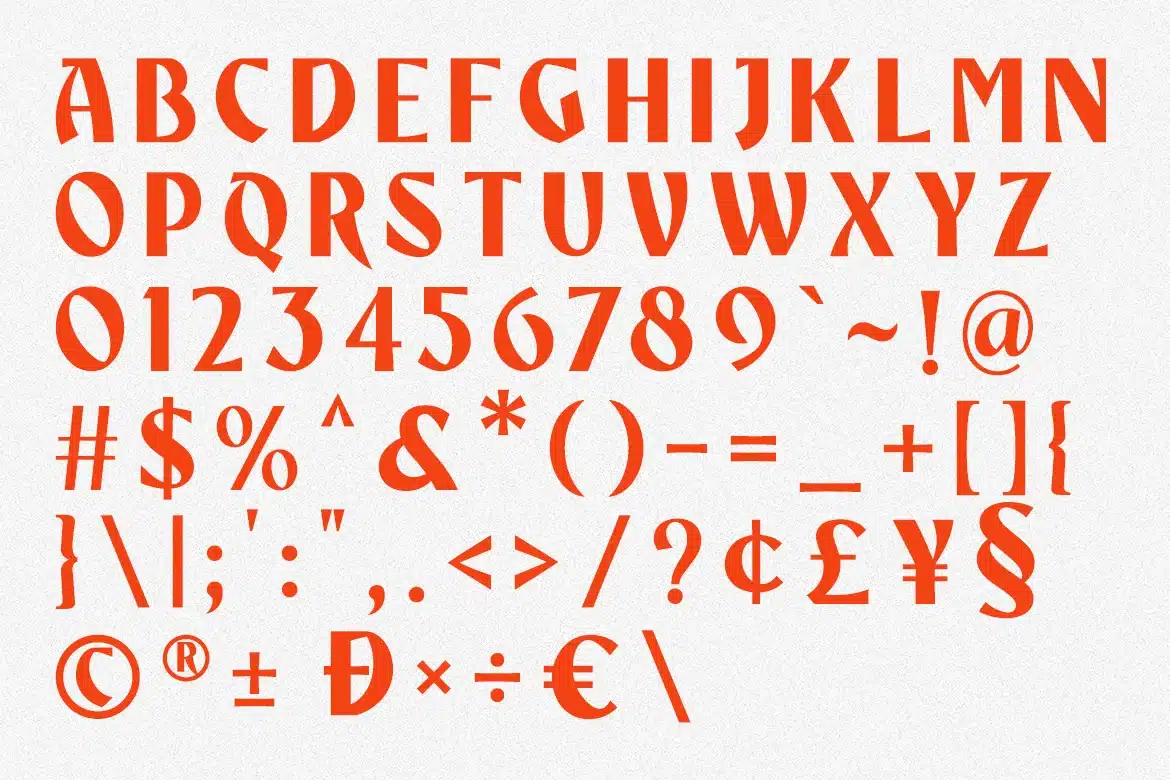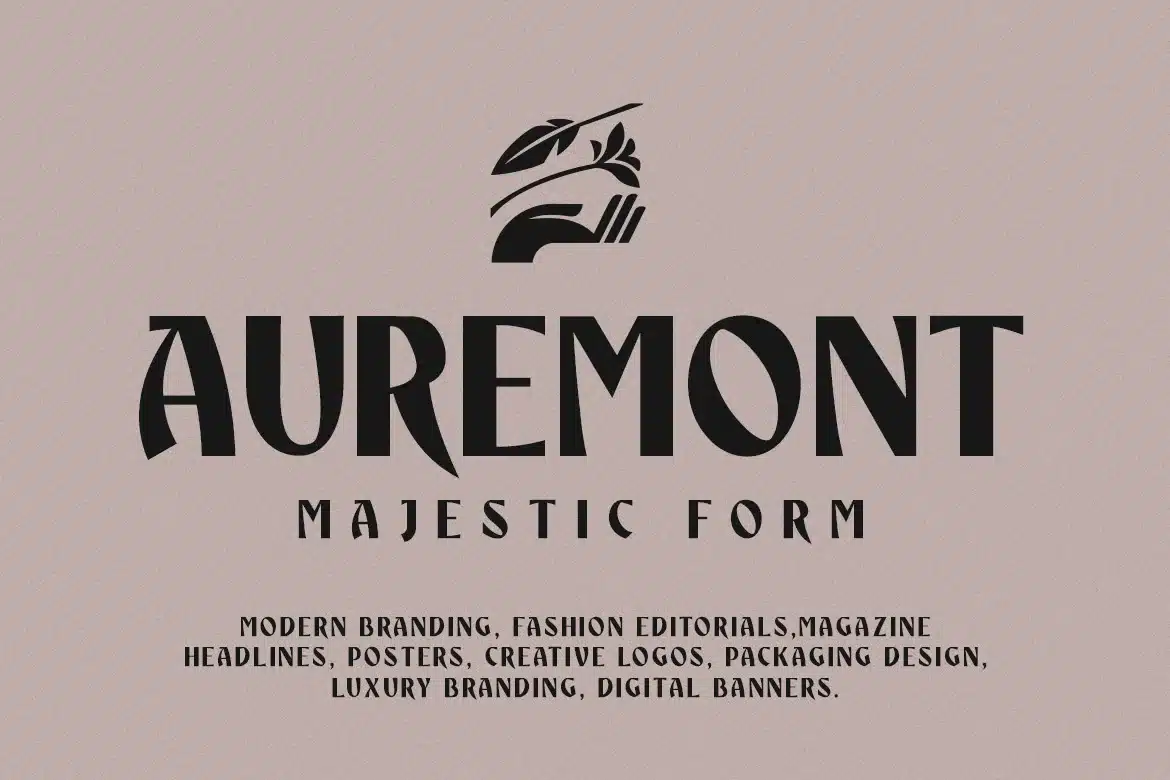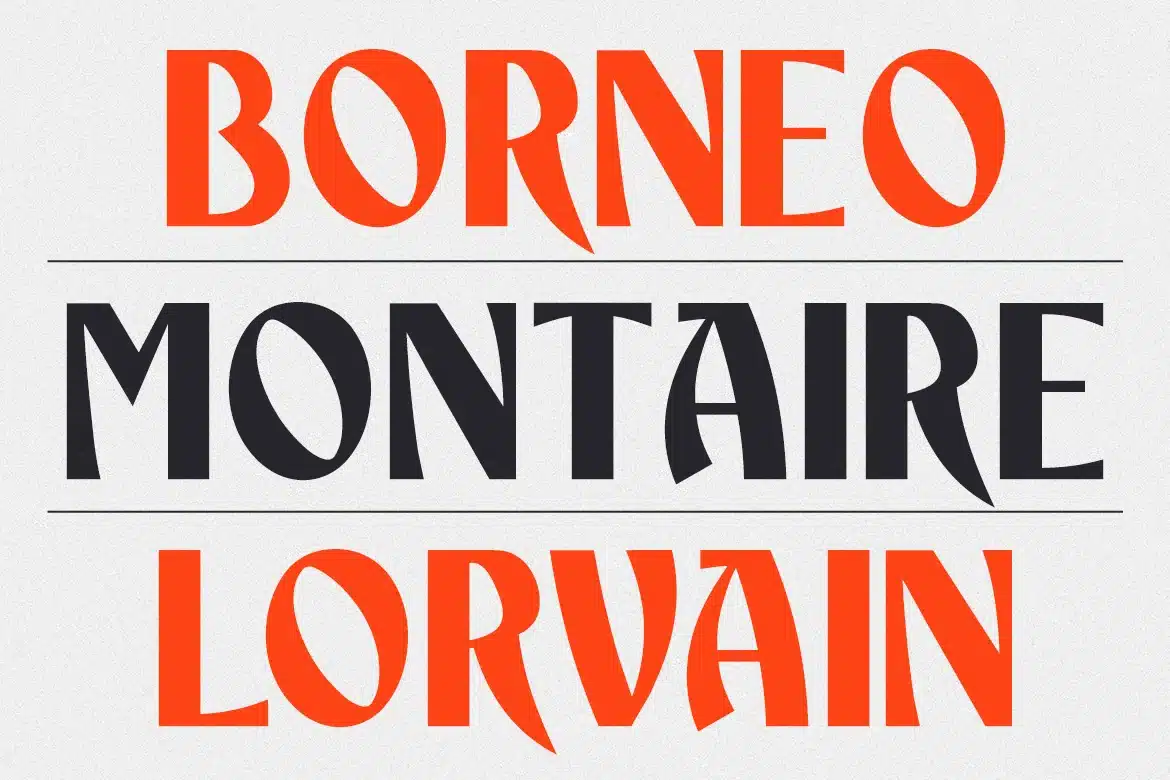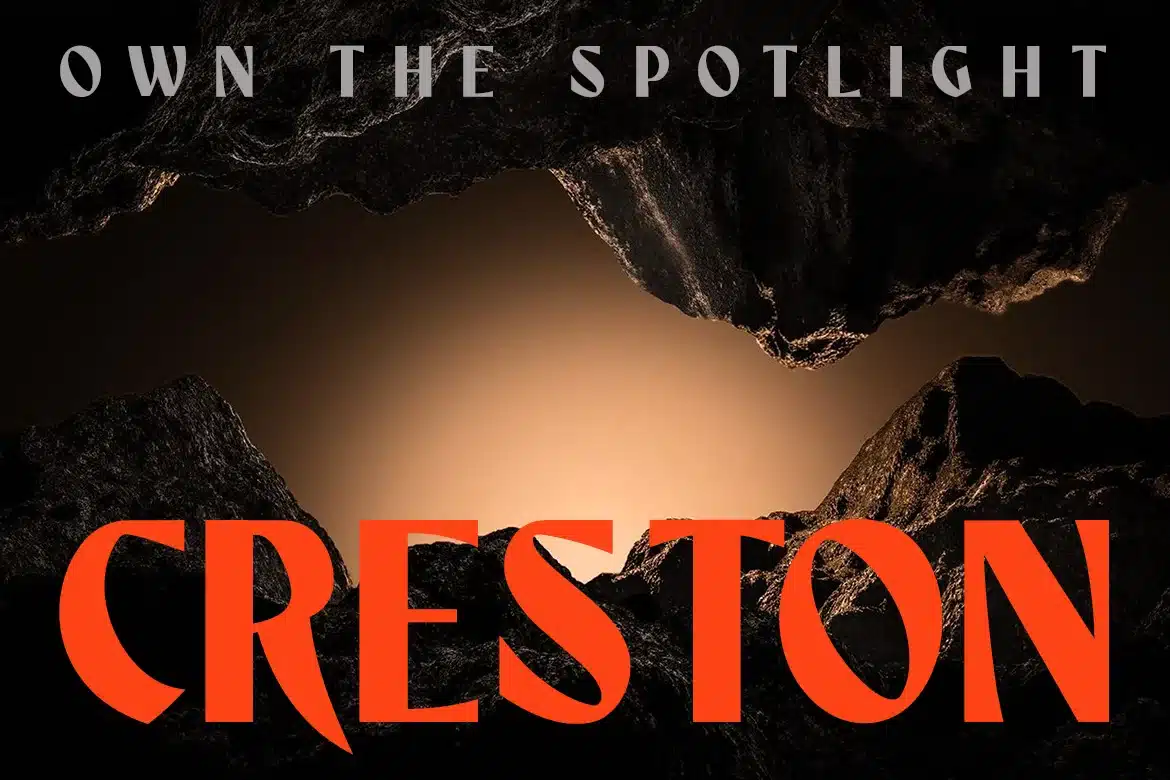
Varagon – Bold Display Serif Font
Varagon is a bold contemporary display sans crafted with sharp architectural curves, dramatic vertical rhythm, and refined modern proportions. Its sculptural letterforms blend futuristic sophistication with timeless editorial elegance, creating a premium visual presence ideal for standout branding.
Best Used For:
- Luxury Branding
- Poster Design
- Magazine Headlines
- Packaging Design
- Logo Design
- Social Media Graphics
- Premium Marketing Materials
Font Features:
- Uppercase Character Set
- Numerals And Punctuation
- Clean Kerning